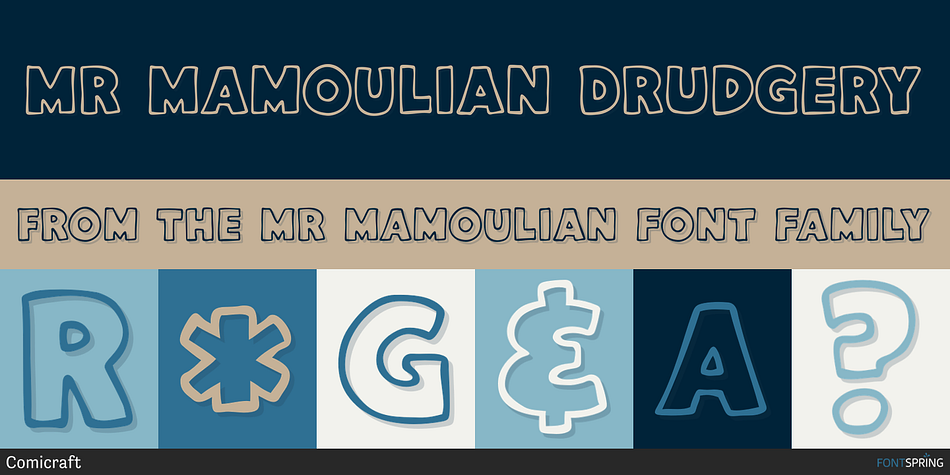
Mr Mamoulian Drudgery
Designed by John Roshell, Mr Mamoulian is a hand display font family. This typeface has four styles and was published by Comicraft.
“In some way I was Mr Mamoulian, and someone else was writing and drawing this stuff. He kept sending me these pages. I had to sign my name and pass them off as my own. I had no choice. He was holding my aged mother hostage, you see. I told him when the pages were due and he somehow got them to me. Sometimes he left them in secret locations. I don’t remember them at all.”—Brian Bolland